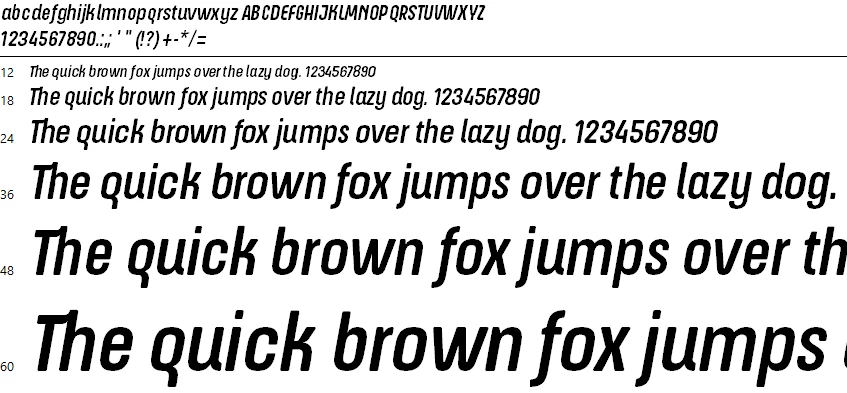
Today we’ll look at the Apron Soft typeface, which is a lovely sans serif font. The soft-vertical structure of an airplane window inspired the design of the Apron Soft font family. On the other hand, Apron Soft is referring to the early 2000s’ technical design ethos. The Font has already been shown to be successful in a number of beverage companies.
The typeface works well with all types of text, whether it’s long or short, thin or bold. The typeface is of such high quality that it can simply be transformed into a web font, which is in high demand among designers because no one enjoys difficulties. Because the typeface is multilingual, you can use it in any language without effort. The Font is available in both TTF and OTF formats.
It has a steady viewpoint and a humanist influence in short texts. It’s ideal for mobile apps, web designs, sporting and technology product packs, and advertisement designs. The fonts are Narrow Bold and Condensed Bold, respectively. For awesome headlines, italic weights have a flowing and forceful expression.